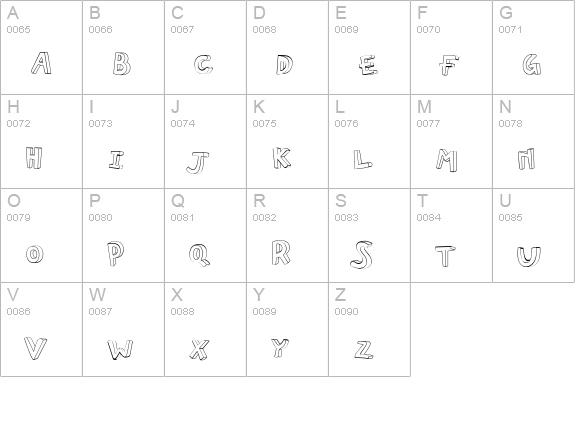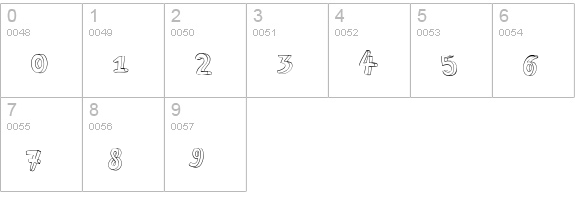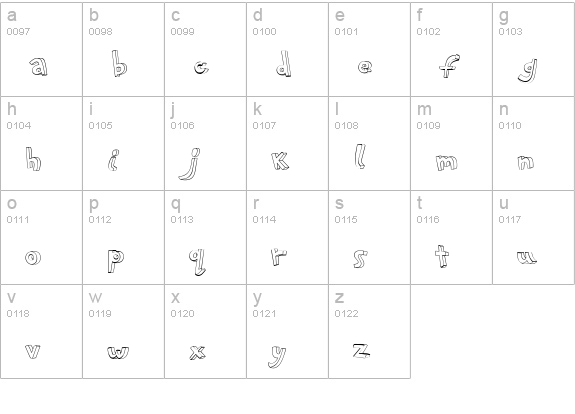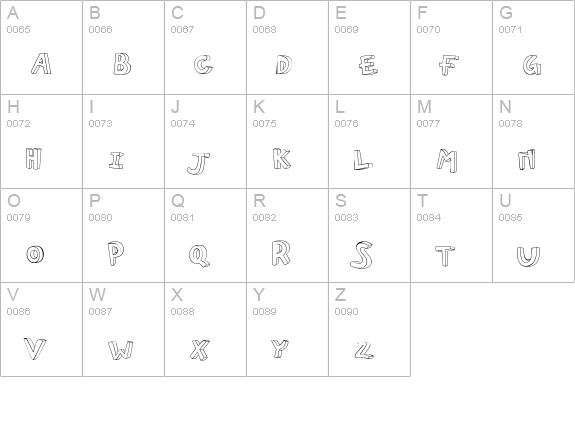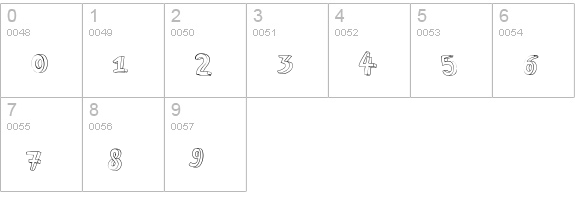
PFPlayskoolPro-3DOutline Font Details
PFPlayskoolPro-3DOutline font is a whimsical and playful typeface that is perfect for adding a fun touch to your projects. This font features 3D outlines that give it a unique and eye-catching look. Whether you are designing posters, invitations, or children's books, PFPlayskoolPro-3DOutline font is sure to make your designs stand out. The best part is that PFPlayskoolPro-3DOutline font is available for free download at FontsMarket.com. You can easily add this charming font to your collection and use it in both personal and commercial projects. So why wait? Download PFPlayskoolPro-3DOutline font today and start creating delightful designs that will capture everyone's attention!